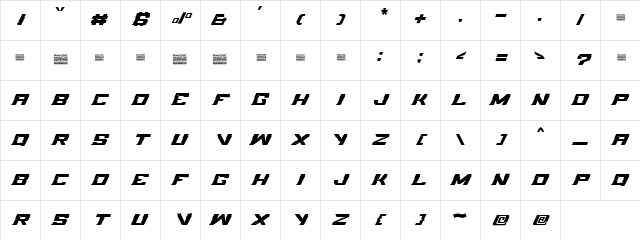
HUNTER RACE-DEMO VERSION Regular
Foundry: handstype studio
Designer: wahyudi nur prayitno
Design Context for HUNTER RACE-DEMO VERSION
HUNTER RACE-DEMO VERSION is a composed and adaptable typeface that performs quietly and consistently across a wide range of design contexts.
Who designed the HUNTER RACE-DEMO VERSION Regular font?